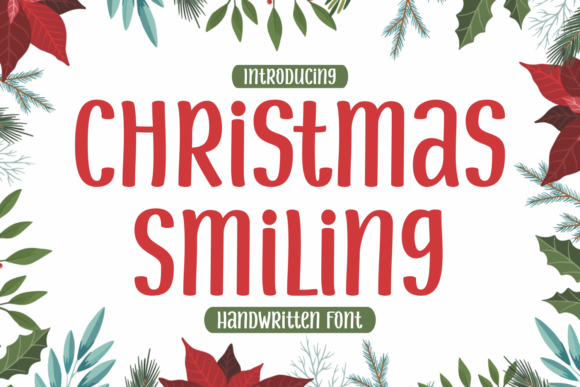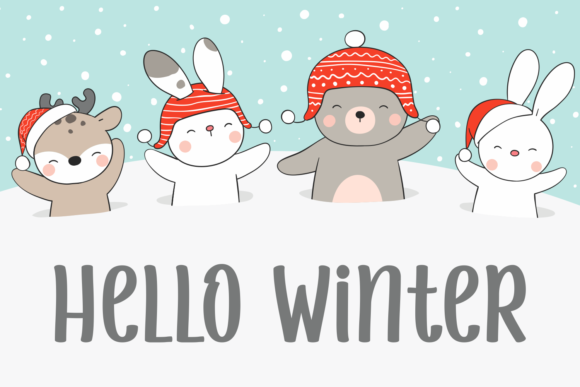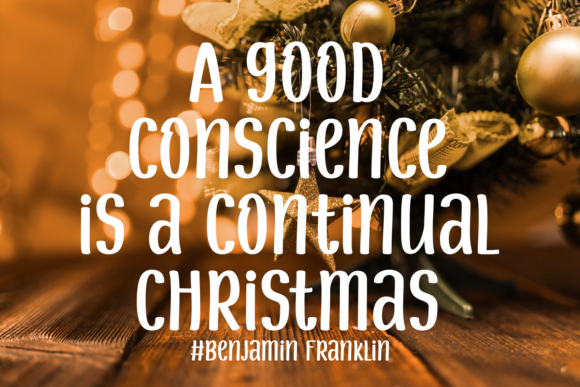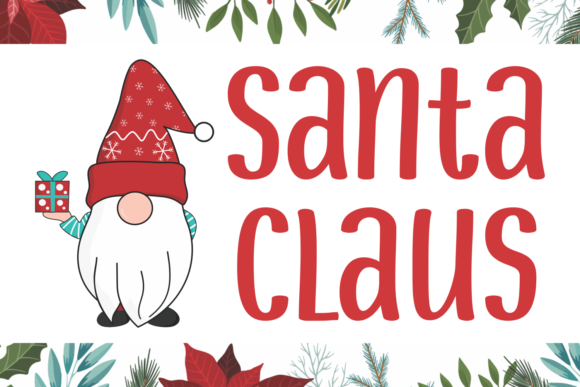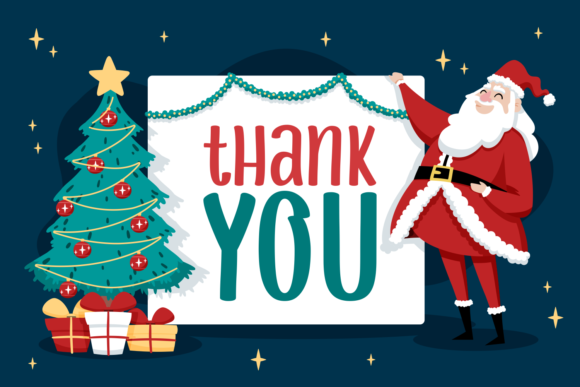
Christmas Smiling Font
About Christmas Smiling Font
Christmas Smiling is a cute, natural and adaptable handwritten font. It will elevate a wide range of crafting ideas, from cards, to branding, labels and much more.